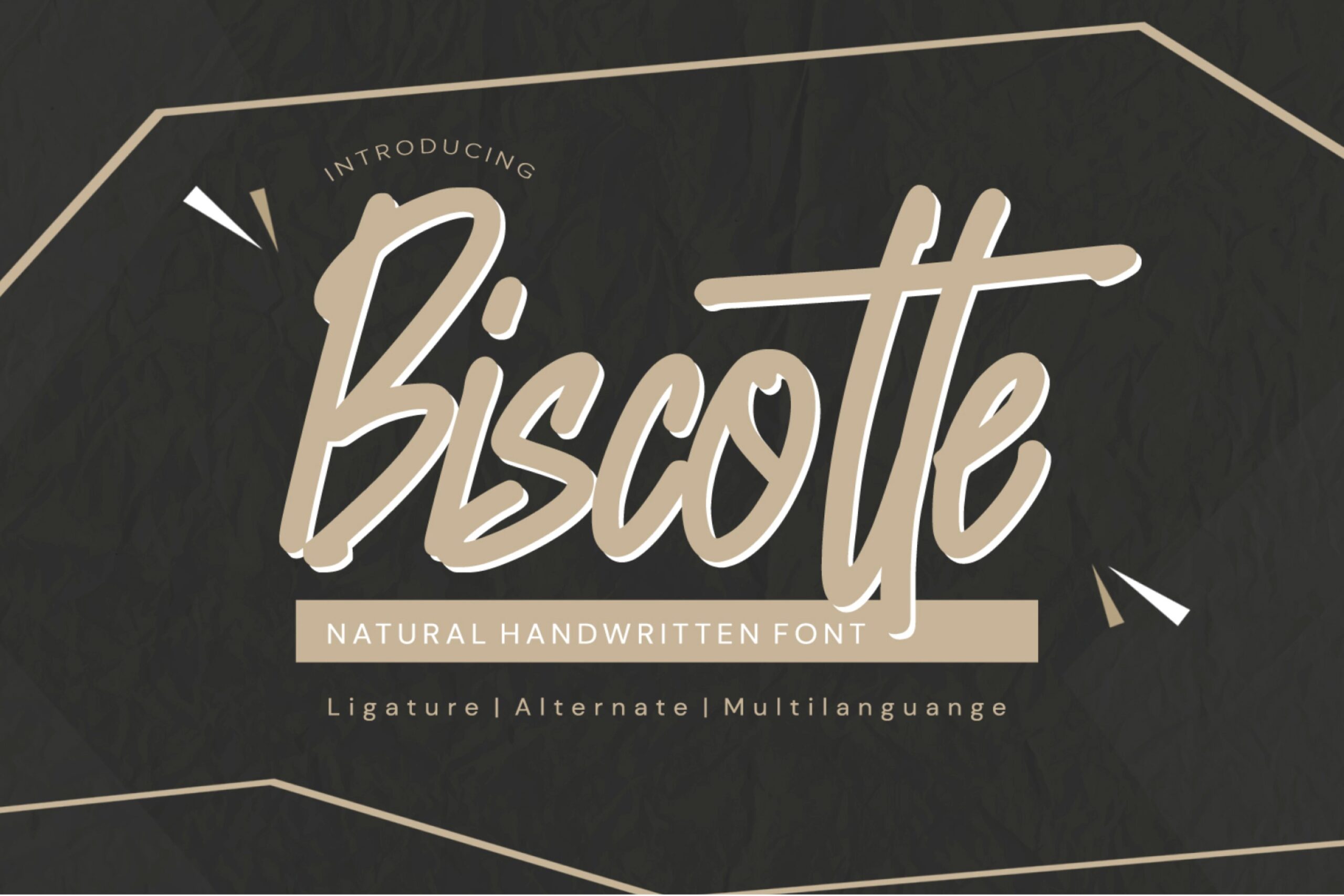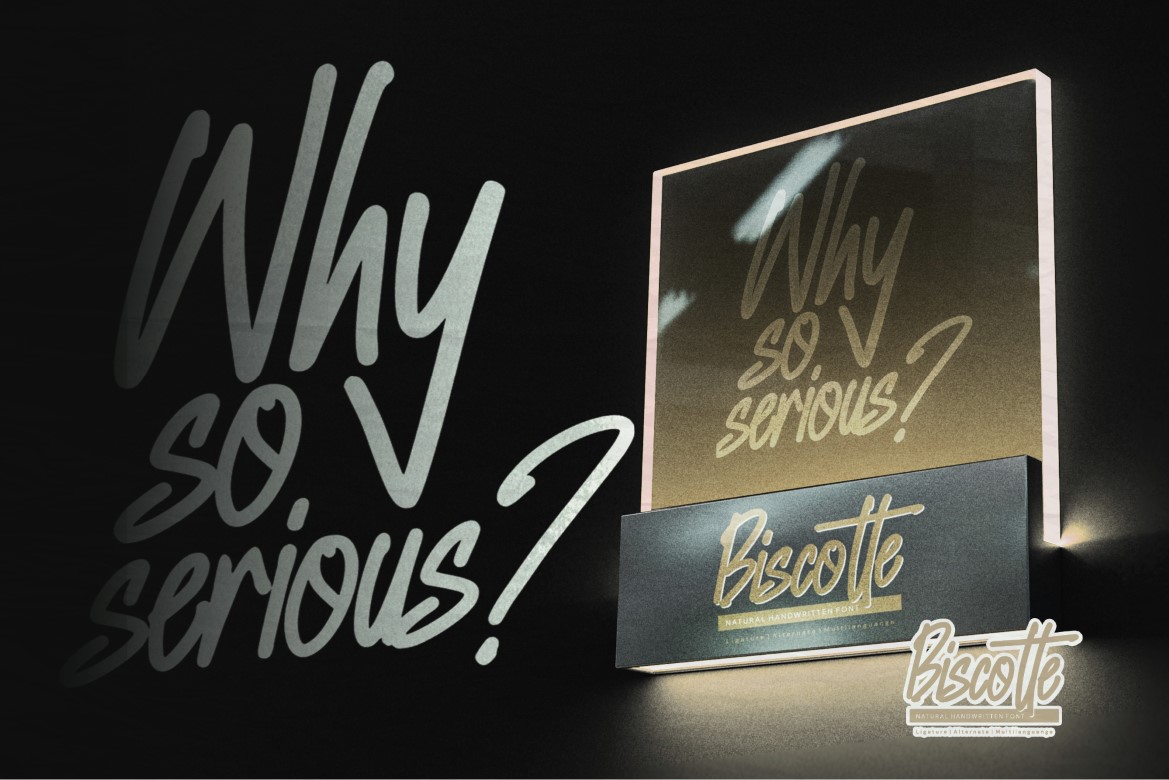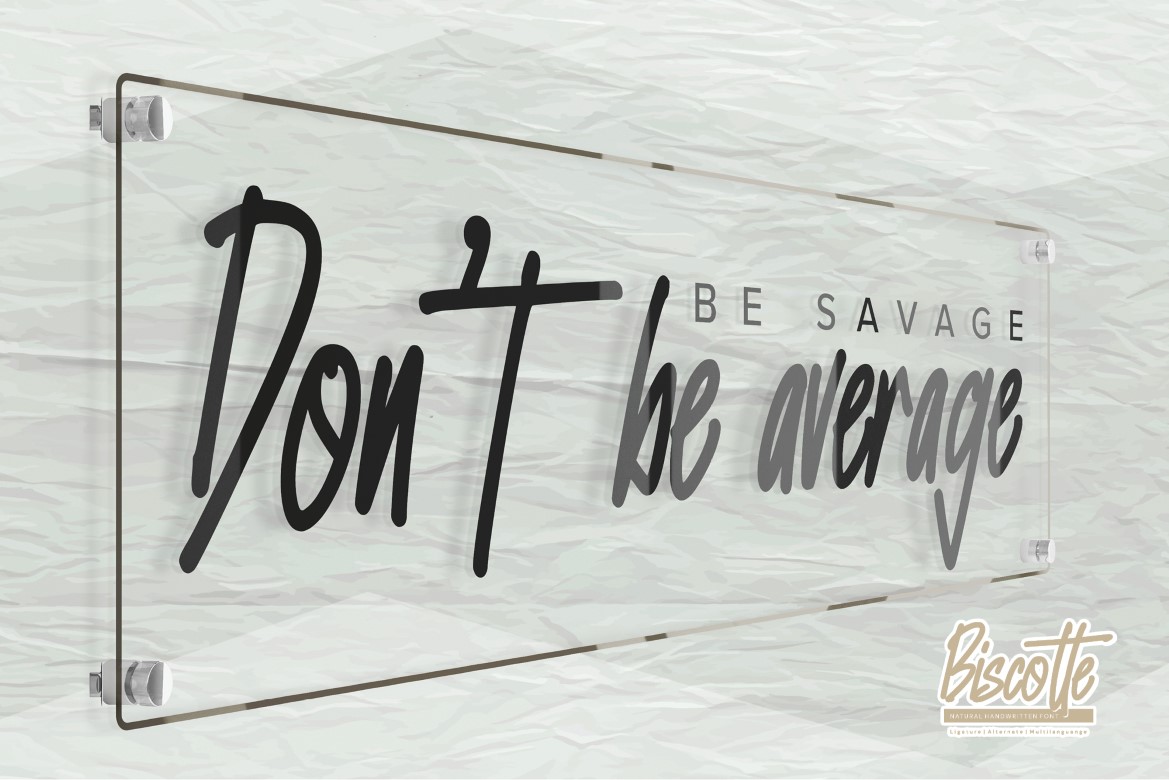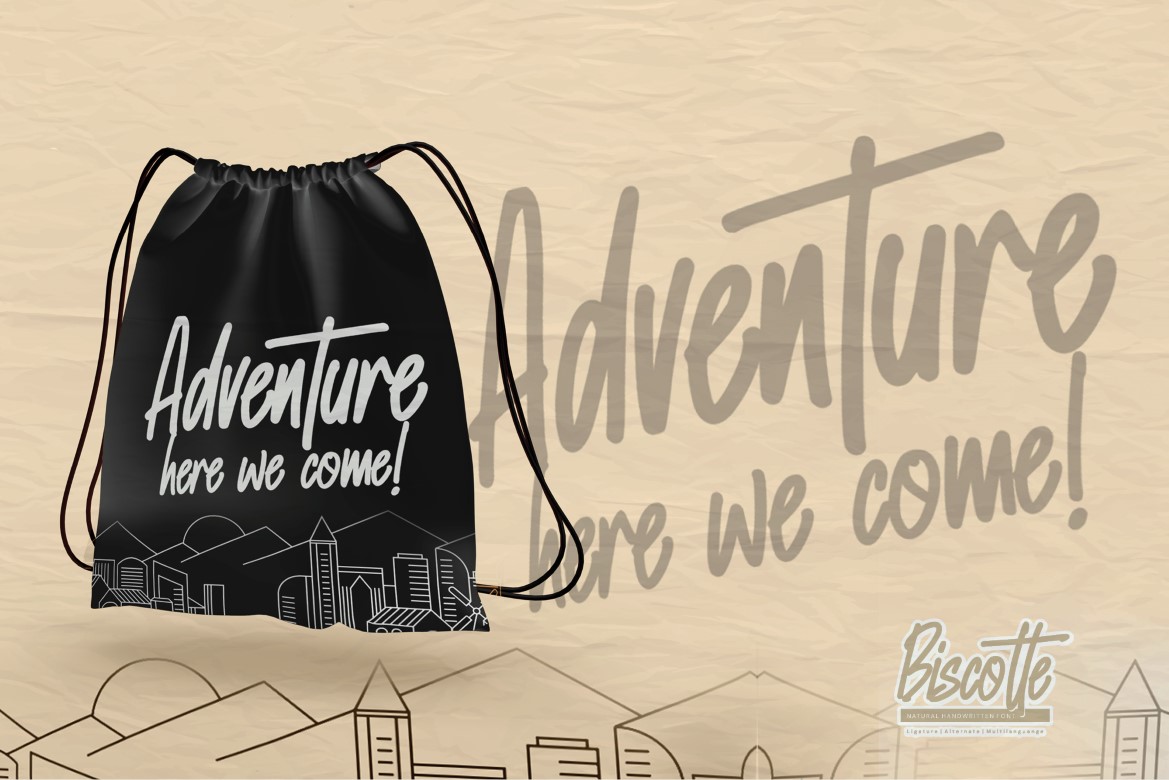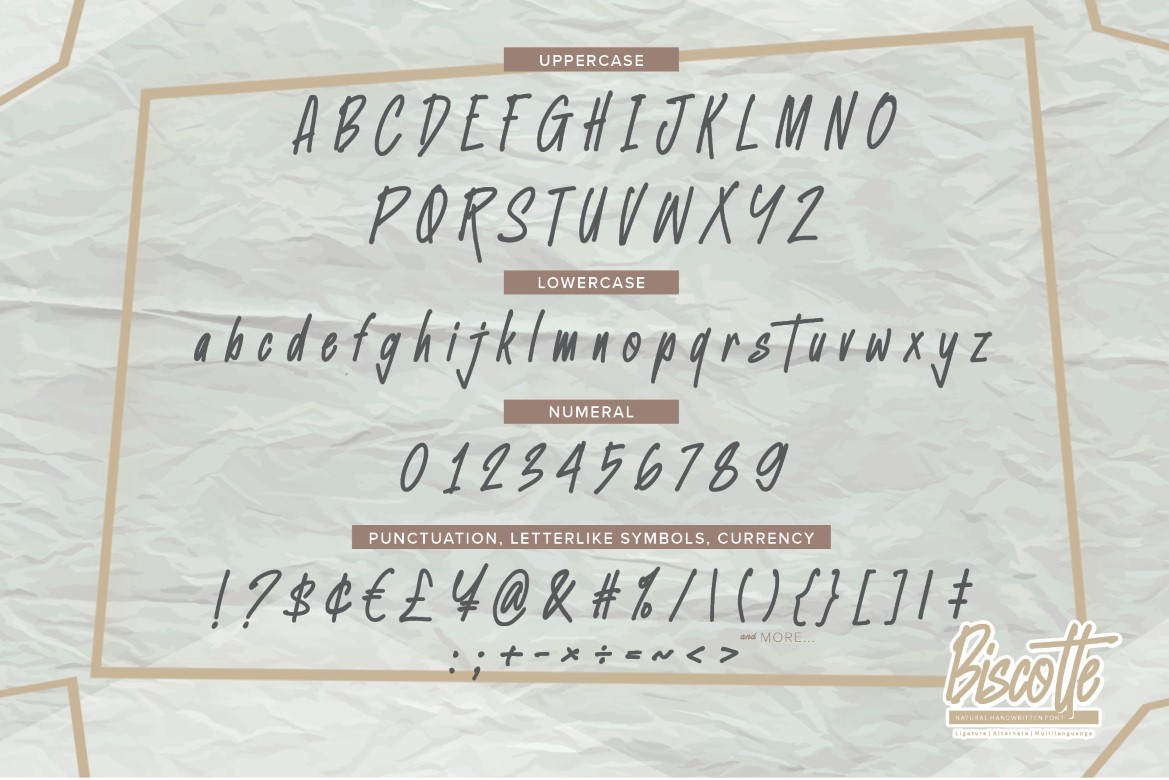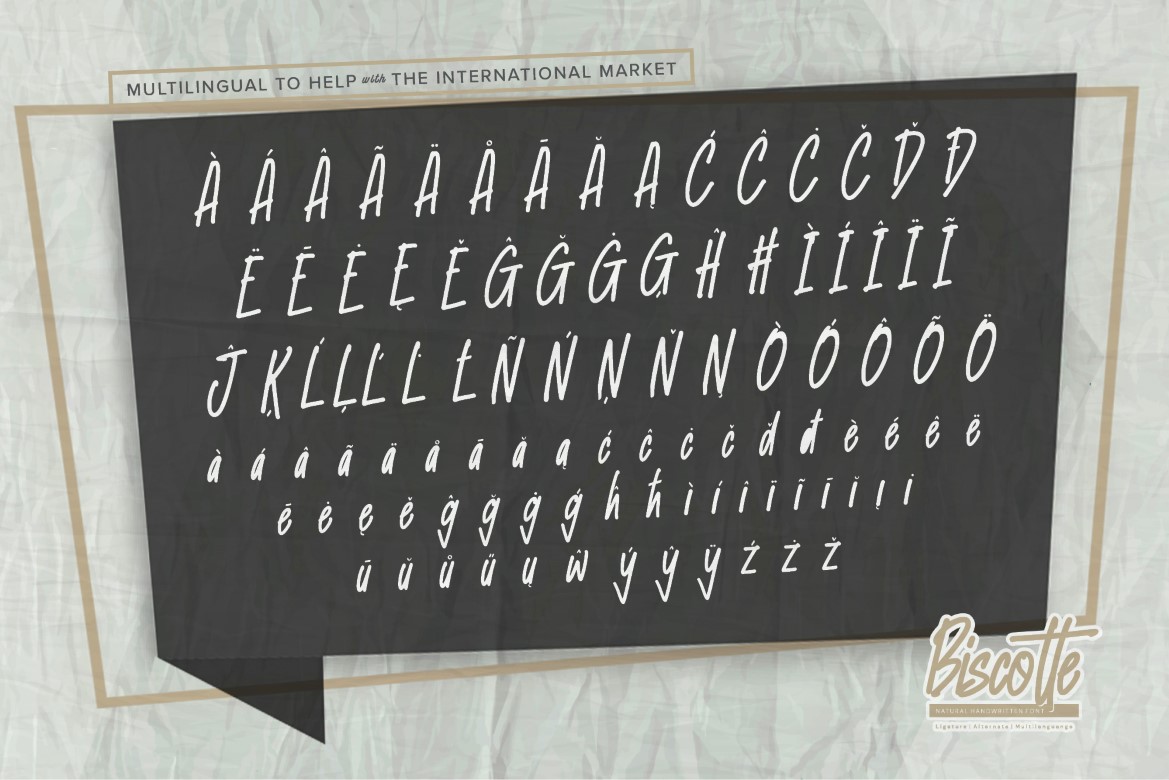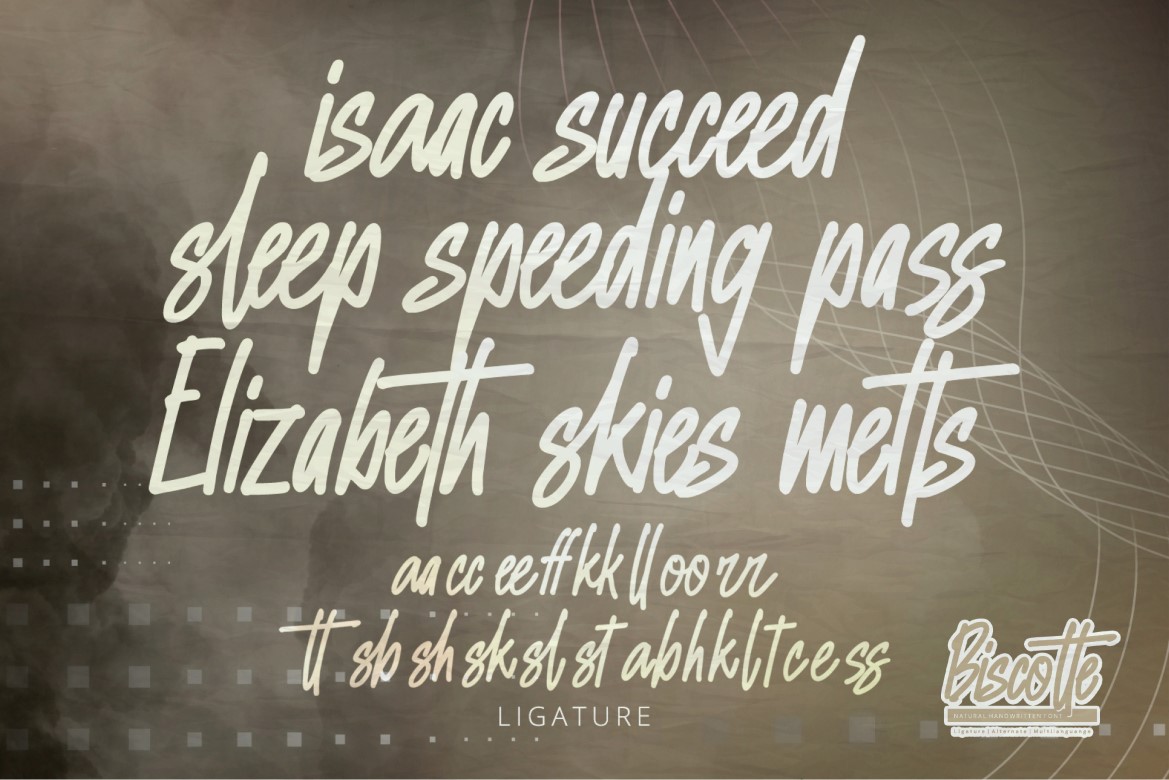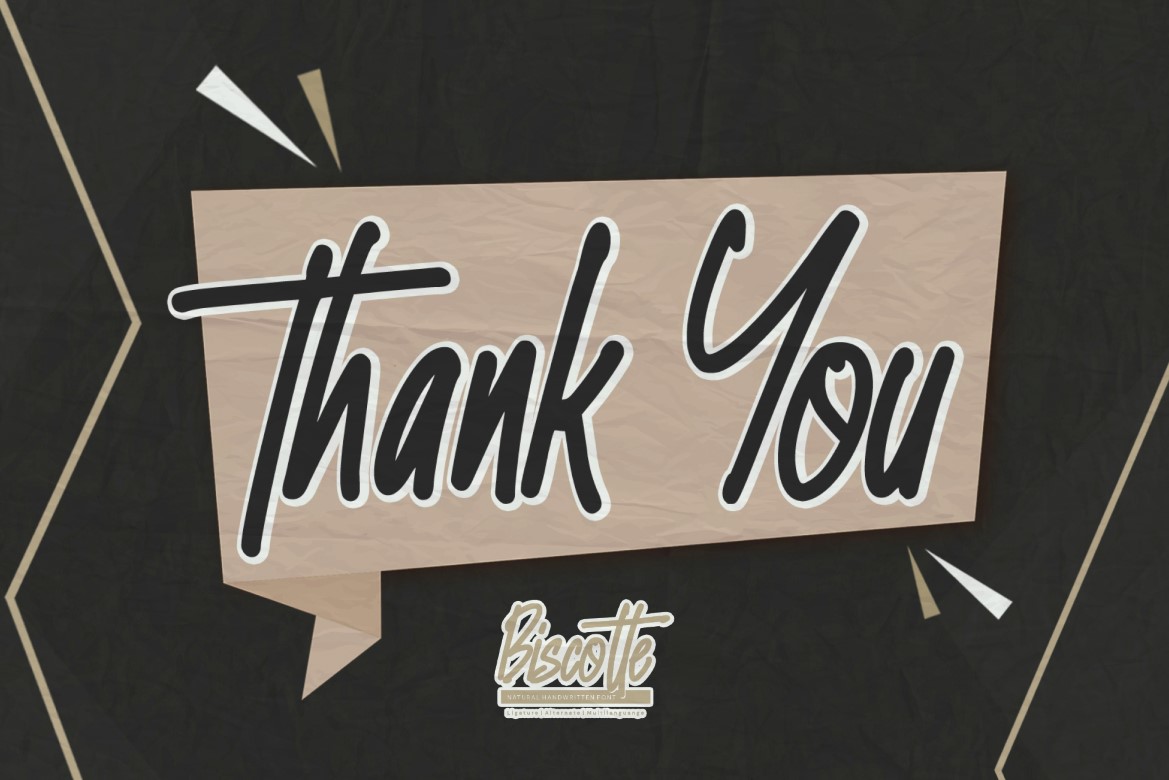
Biscotte – Natural Handwritten Font is an elegant display Font that is written casually and quickly.
That is why Biscotte has a natural, and script characteristic more natural look. Biscotte Perfect for designs, branding projects, Logo design,Quotes product packaging and another Project that require cool font.You can activate Ligatures and Alternates glyphs OpenType panel.